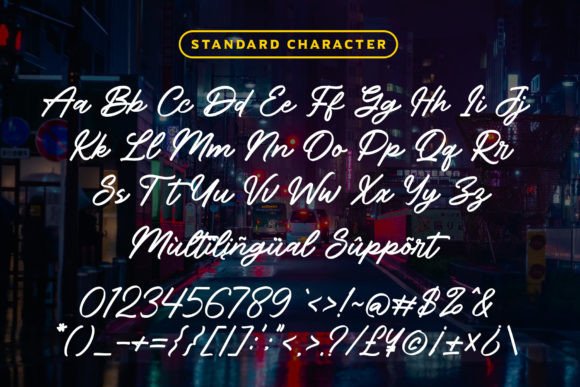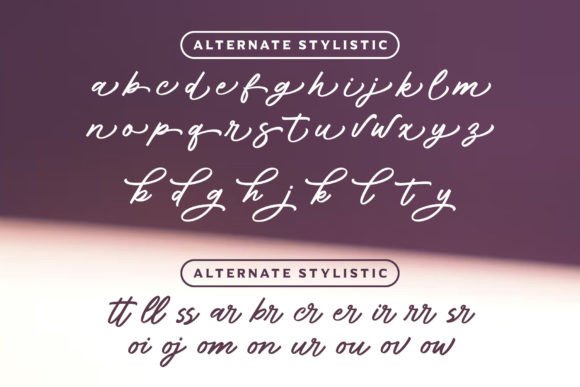
Discover the Fresh and Unique Catalyst Script Font
Have you ever been in the middle of a design project, and suddenly, you’re stuck on finding the perfect font? I recall a recent experience where I was working on a branding project for a boutique client, and I just couldn’t find a font that captured the essence of their elegant yet playful vibe. That’s when I stumbled upon the Catalyst Script Font, and it completely transformed my design. In this article, I’ll share my journey with this amazing font, its features, and how you can make the most of it in your designs.
A Personal Review of Catalyst Script Font
As a designer, I’m always on the lookout for fonts that can elevate my work and make it stand out. Here’s my honest review of the Catalyst Script Font:
• ✨ Fresh and unique handwritten look that adds a touch of elegance to any design
• 💫 Perfect for a wide range of design projects, including logos, stationery, posters, apparel, branding, advertisements, product packaging, and more
• 🎨 Highly versatile and can be used for both digital and print designs
• 🤔 Some users may find the font a bit too delicate for certain design projects, such as bold or large-scale applications
• ⚠️ As with any script font, it may not be suitable for body text or long-form reading due to its ornate nature
The Story Behind Catalyst Script Font
The Catalyst Script Font was designed with the intention of creating a fresh and unique handwritten look that would inspire designers to create beautiful and elegant designs. The designer aimed to craft a font that would be perfect for a wide range of design projects, from logos and stationery to posters and apparel. With its PUA encoding and OpenType features, the Catalyst Script Font offers endless possibilities for creative expression.
Q: What is PUA encoding, and how does it benefit the Catalyst Script Font?
A: PUA (Private Use Area) encoding allows designers to access a wide range of glyphs and swashes, making it easier to create unique and customized designs.
Q: Is the Catalyst Script Font suitable for body text or long-form reading?
A: Due to its ornate nature, the Catalyst Script Font may not be the best choice for body text or long-form reading. However, it can be used for headings, titles, and other display text.